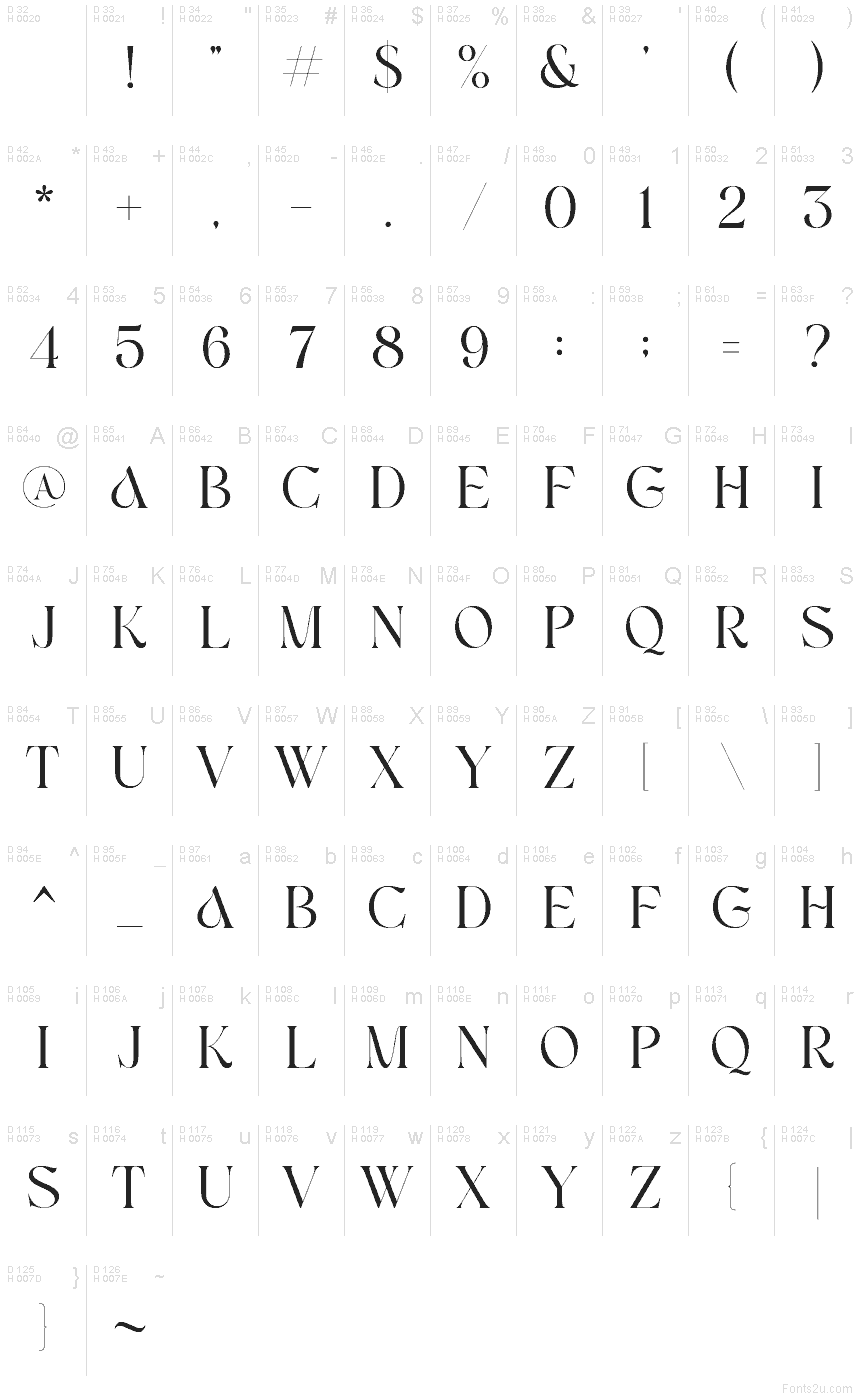
Acros
Acros font by Graphicxell is a free retro display typeface with sculpted curves and teardrop scoops that feel carved rather than drawn. Its strokes slice into generous bowls, creating a glossy, inky rhythm that reads with drama even at a glance. The spacing is tight but stable, so headlines stack neatly while still feeling lush and indulgent.
Using Acros, you get a distinctive voice for boutique branding, album art, posters, wine or perfume labels, magazine mastheads, and event invitations. The letterforms inject flair without turning fussy, giving logos a memorable silhouette and titles a luxurious snap. Pair this free font with a clean geometric sans for body copy, and let Acros handle the spotlight at larger sizes.